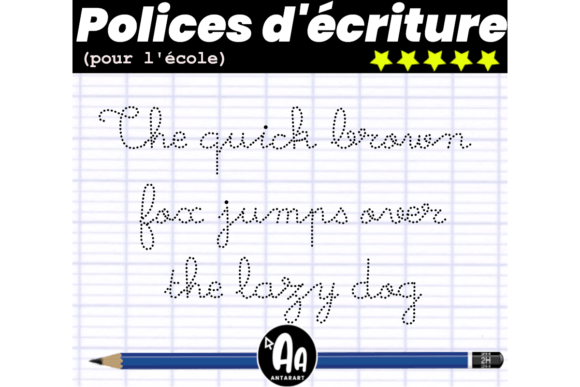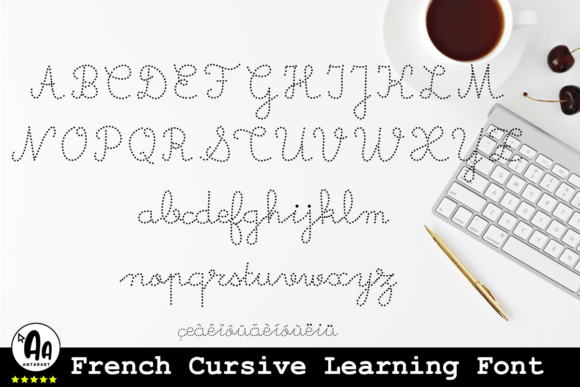
French Cursive Font: A Beautiful Handwritten Font for Learning and Design
French Cursive, also known as French Script or Handwriting, is a beautiful and elegant style of handwriting that has been used for centuries in France and other parts of the world. This lovely script is not only a pleasure to read and write but also a great way to add a touch of sophistication and flair to any design project. In this article, we’ll explore the world of French Cursive Font, its benefits, and how you can use it to create stunning worksheets and designs.
What is French Cursive Font?
French Cursive Font is a handwritten font that mimics the traditional French cursive handwriting style. It’s a flowing script that connects letters together, creating a beautiful and harmonious flow of lines. This font is perfect for those who want to learn or teach French cursive handwriting in an enjoyable and interactive way. With French Cursive Font, you can create hundreds of worksheets using any software, making it an excellent resource for teachers, designers, and crafters.
Benefits of Using French Cursive Font
There are many benefits to using French Cursive Font, including:
- Improved Handwriting Skills: French Cursive Font helps individuals improve their handwriting skills by providing a model for correct letter formation and flow.
- Elegant Designs: This beautiful font adds a touch of elegance and sophistication to any design project, making it perfect for designers and crafters.
- Interactive Learning: French Cursive Font makes learning and teaching French cursive handwriting an enjoyable and interactive experience.
- Versatility: This font can be used to create a wide range of materials, from worksheets and handouts to posters and signs.
How to Use French Cursive Font
Using French Cursive Font is easy and straightforward. Here are some ways you can use this beautiful font:
- Create Worksheets: Use French Cursive Font to create worksheets for learning and practicing French cursive handwriting.
- Design Posters and Signs: Add a touch of elegance to your posters and signs with French Cursive Font.
- Make Handouts and Flyers: Use this font to create handouts and flyers for events, announcements, and promotions.
- Enhance Digital Designs: Add French Cursive Font to your digital designs, such as social media graphics, blog posts, and presentations.
If you’re a designer or crafter looking to use French Cursive Font in your projects, here are some tips to keep in mind:
- Experiment with Colors and Textures: Add some personality to your designs by experimenting with different colors and textures.
- Keep it Simple: Don’t overcomplicate your designs. Keep them simple and elegant to showcase the beauty of French Cursive Font.
- Practice and Have Fun: The more you practice using French Cursive Font, the more comfortable you’ll become with its unique flow and style.
French Cursive Font is a beautiful and elegant handwritten font that offers a wide range of benefits for designers, crafters, and educators. With its flowing script and harmonious flow of lines, this font is perfect for creating stunning worksheets, designs, and materials. Whether you’re looking to improve your handwriting skills, create elegant designs, or make interactive learning materials, French Cursive Font is an excellent choice. So why not give it a try and see the beauty of French Cursive Font for yourself?
With French Cursive Font, the possibilities are endless. Get creative, have fun, and enjoy the process of learning and designing with this beautiful handwritten font.